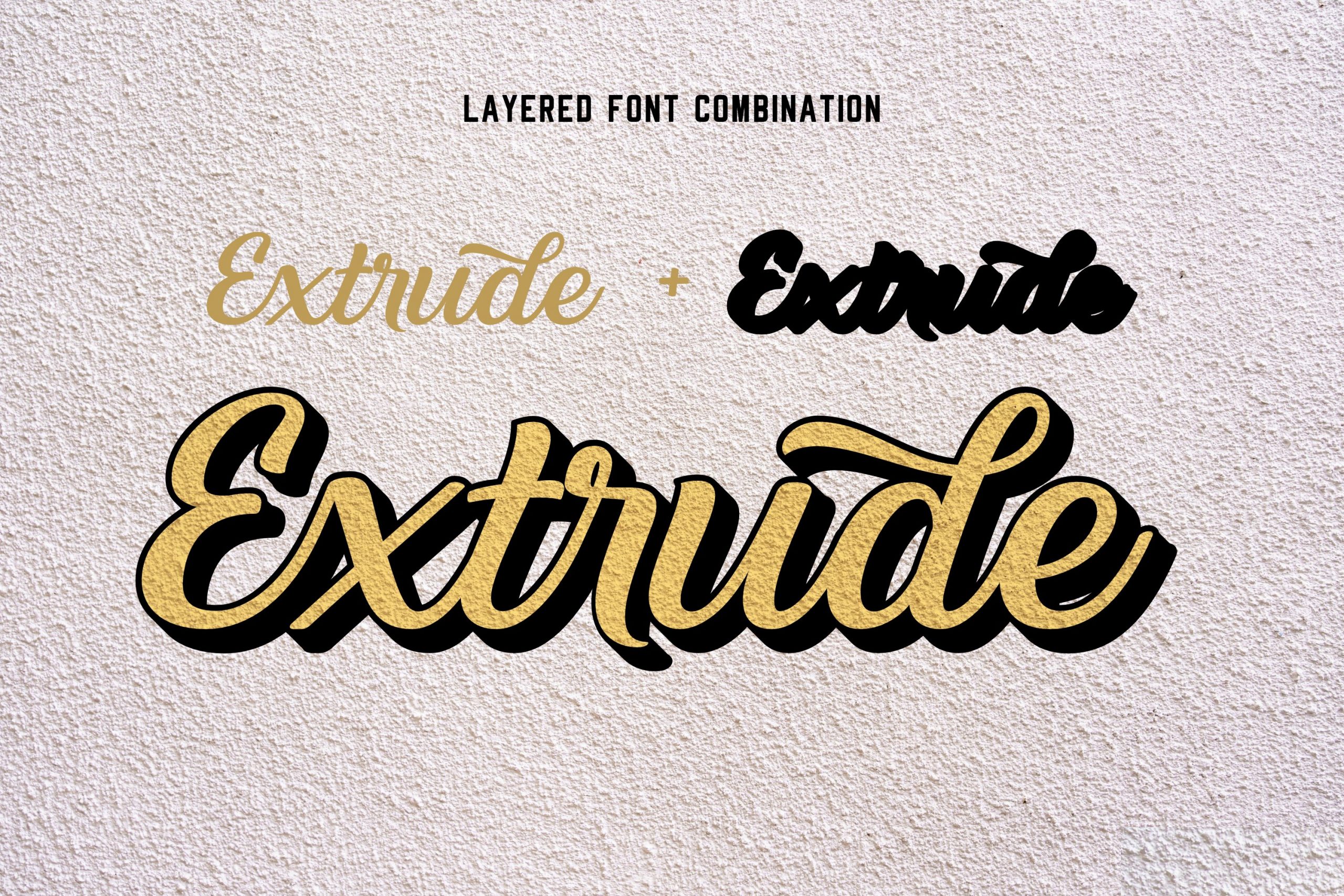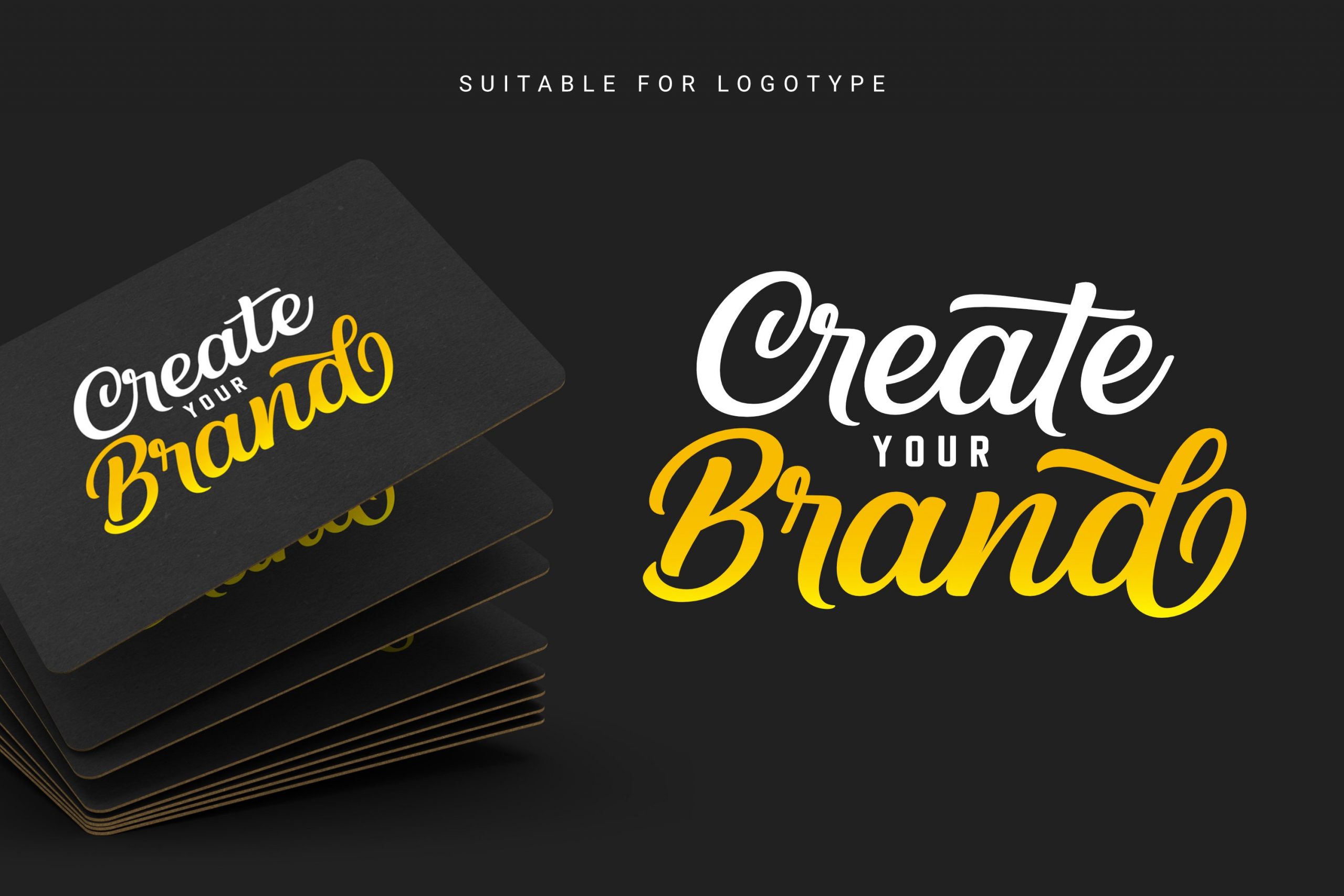
Braders Script Font
This is a cursive and vintage styled handwritten font. It reads as strong, confident, and dynamic and can add tons of nostalgic character to your designs.